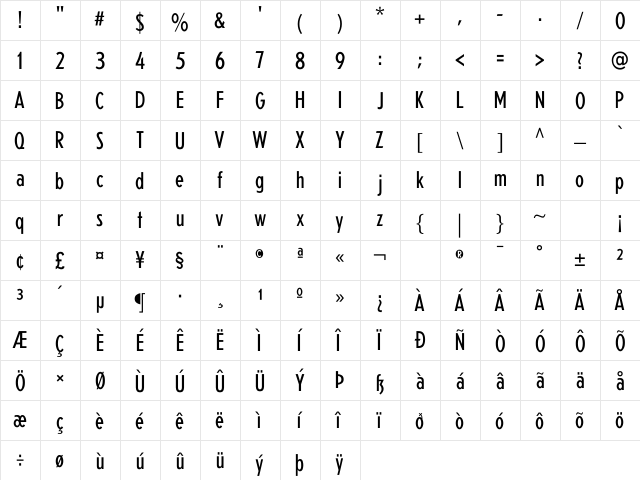
Neu5Land Normal
Design Context for Neu5Land Typeface
Neu5Land offers clean, dependable letterforms without strong stylistic allegiance, making it a practical choice for designers who need flexibility.
Pro Tip: Pair Neu5Land with a font of contrasting weight or personality to build a more expressive typographic hierarchy.